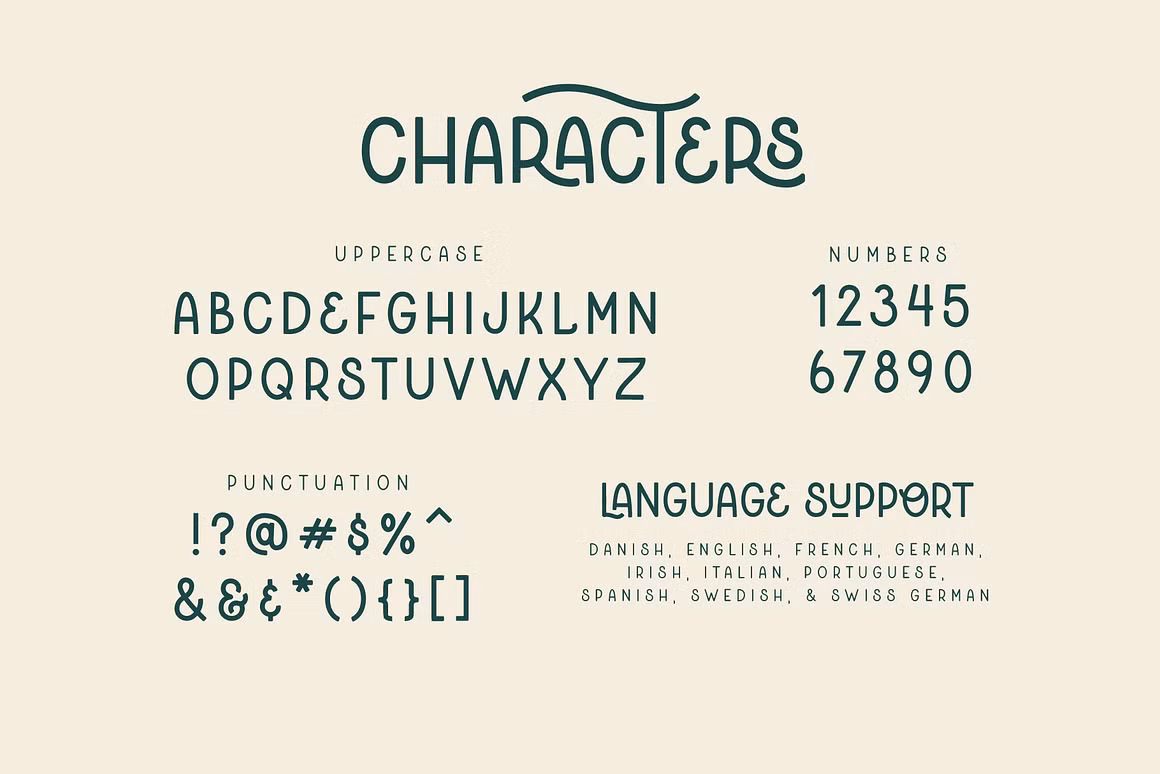
Kindred is an organic and hand-lettered sans typeface created and published by Rachel Kick. FKindred draws its inspiration from the art of hand lettering, featuring numerous characters that seamlessly fit together and swashes that impart a hand-drawn touch. Its slightly rounded corners contribute to an organic and friendly appearance. Boasting a wide array of alternates and ligatures, Kindred allows each word to be tailored specifically to meet the unique requirements of your project, providing a personalized and crafted look to your designs.
Glyphs: Basic Latin, Diacritics, Alternates, Multilingual
Styles: Light, Regular, Bold, Rounded Light, Rounded Regular, Rounded Bold